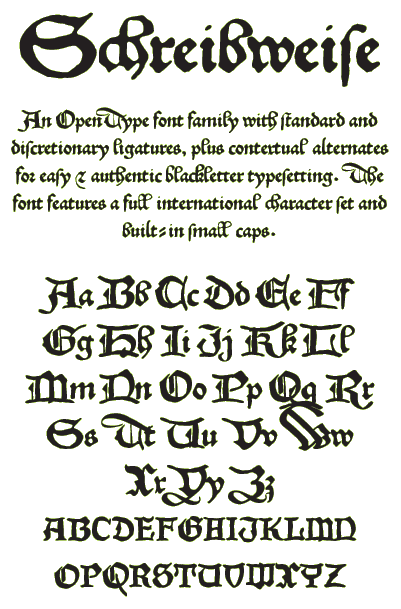
Schreibweise was developed from a sample of a German manuscript dating from 1492. It features numerous ligatures and alternate letterforms available through OpenType to easily create the feel of an old illuminated manuscript done in blackletter style.